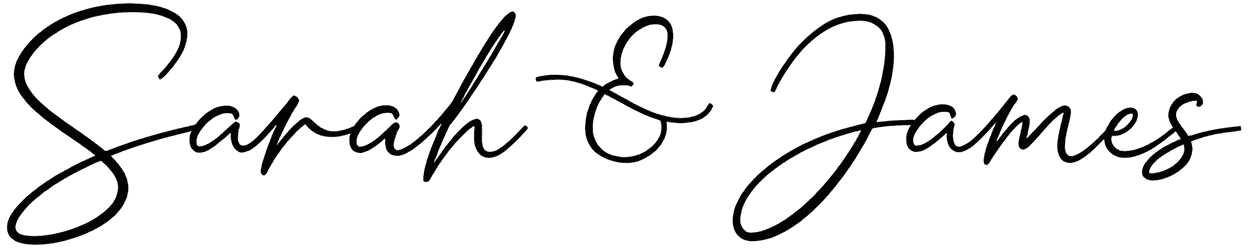
Sarah And James Font
With a silky and delicate outward, your design is able to show a tasty and attractive mood to your audience. As a feminine font, Sarah And James consists of smooth pen lettering and reflects a chic vibe. Try this unique calligraphy font for your intended designs, from business cards to tattoos, and give a delightful style to them.